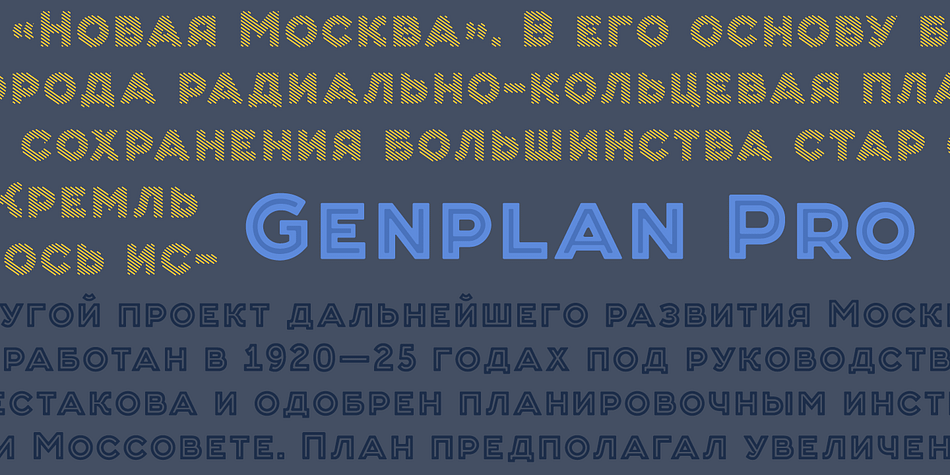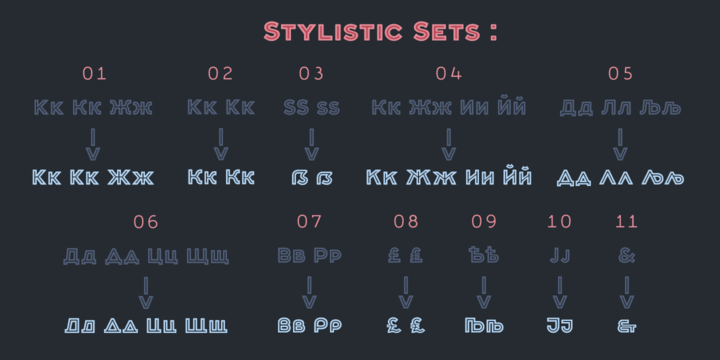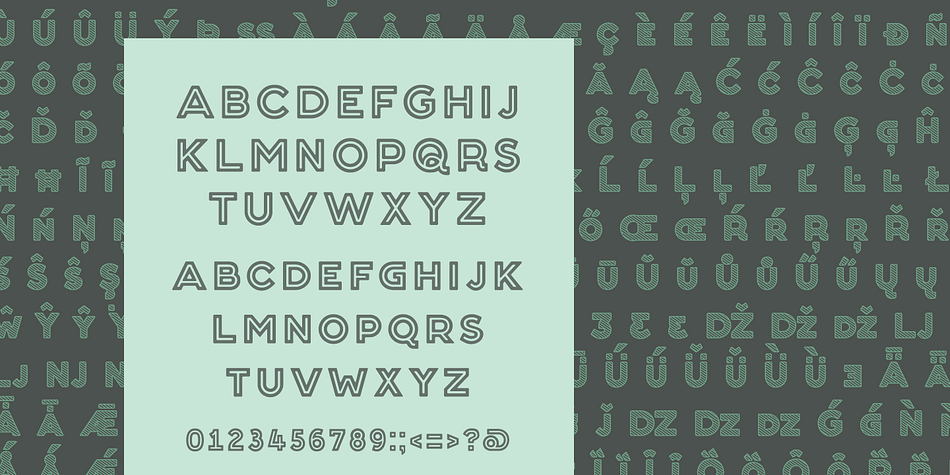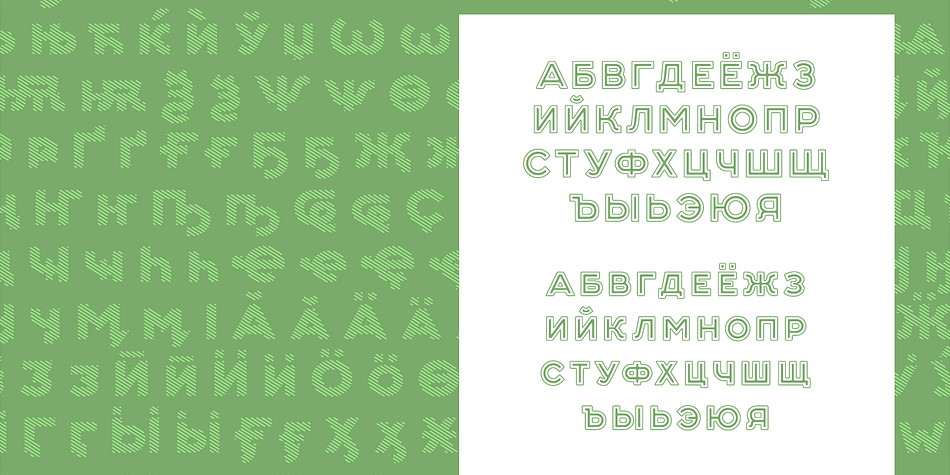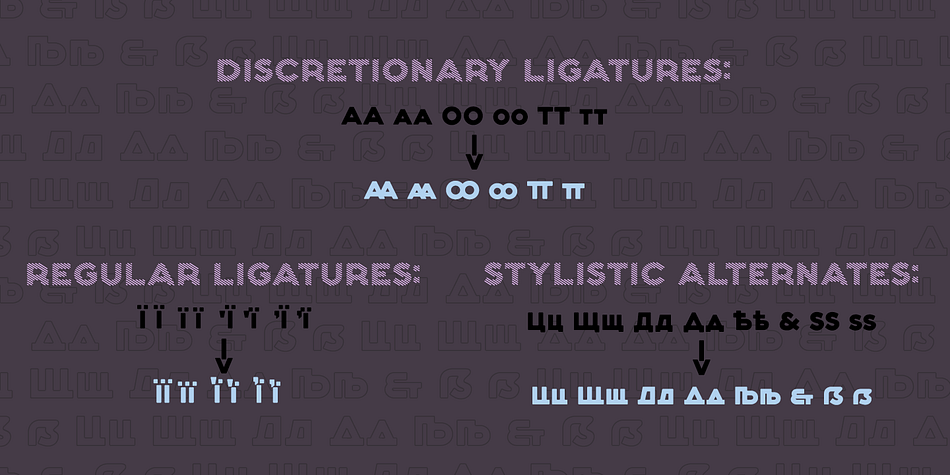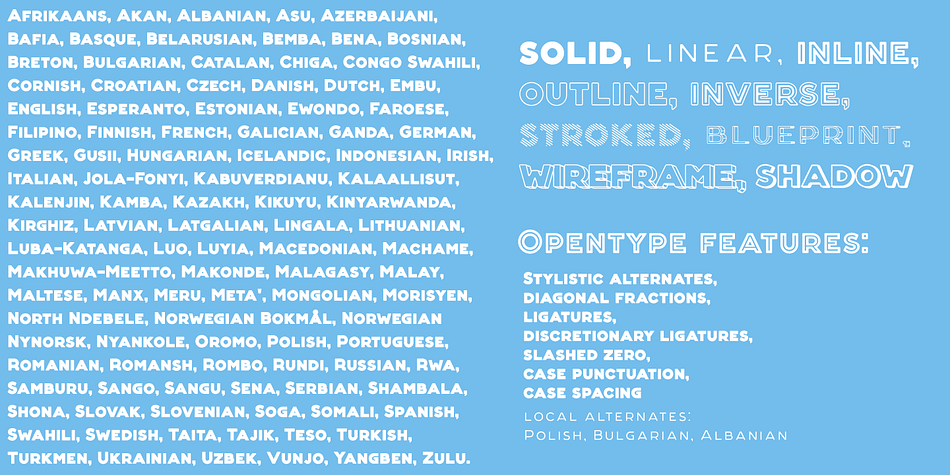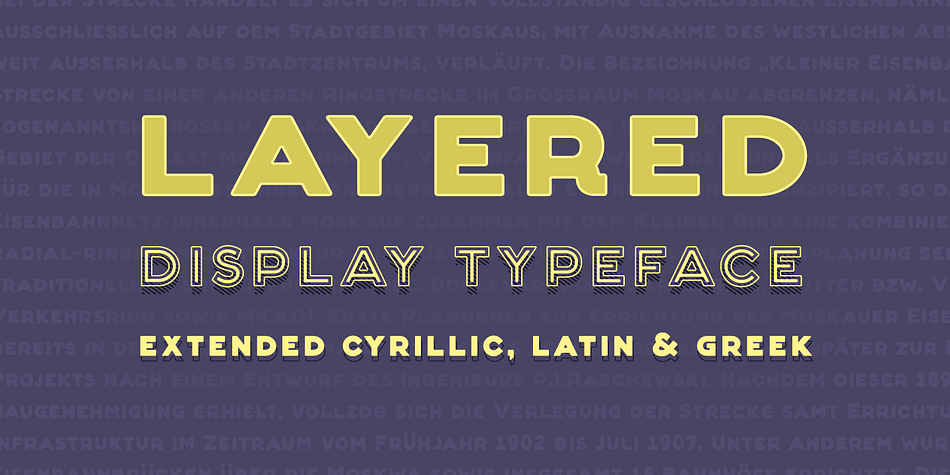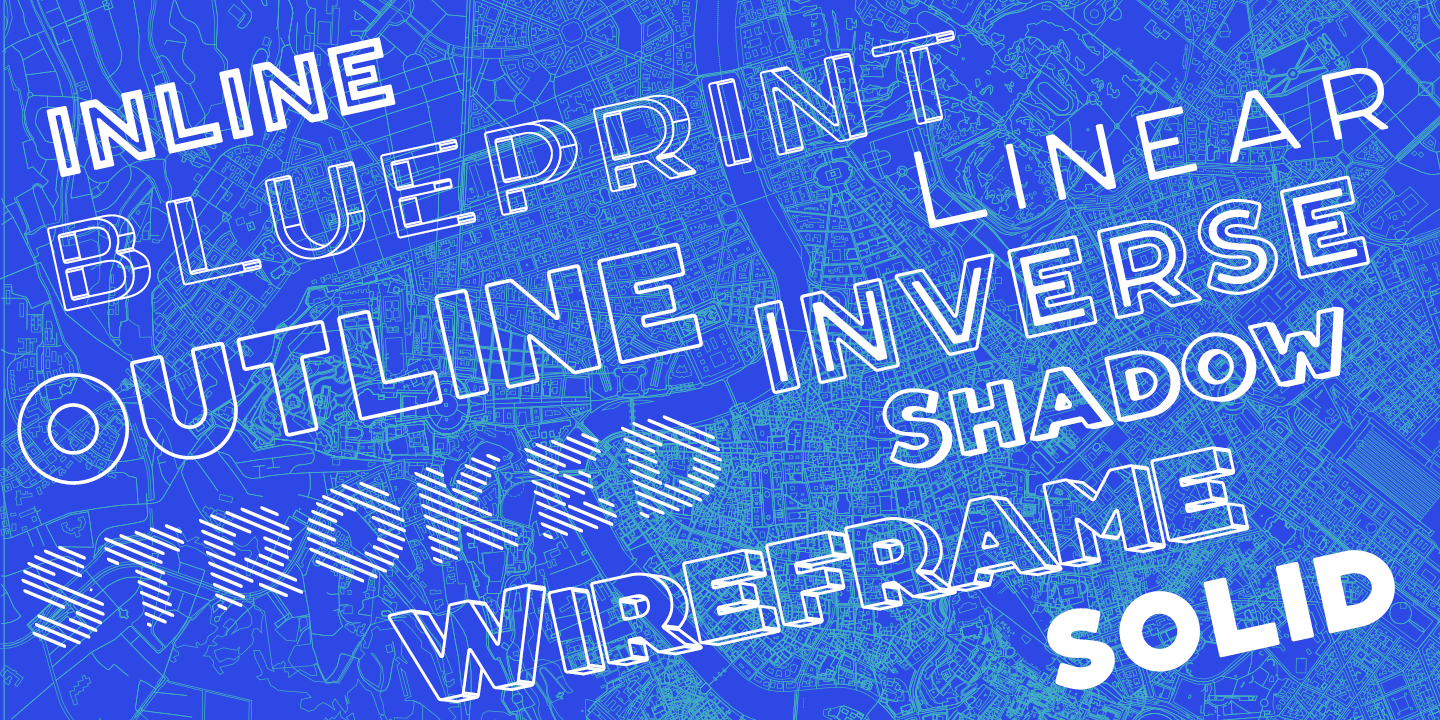
Designed by Dmitry Goloub, Genplan Pro is a display sans font family. This typeface has nine styles and was published by Thundertype.
Genplan Pro is a display family of nine typographic layers with a retro feeling. They could be stacked upon each other or could be used separately. Genplan Pro is based on the lettering in the title of the general plan of Moscow of 1935.
It supports all European languages including Greek, and many Cyrillic languages including the Asian ones. It has uppercase and small-caps letters. It also includes currency signs for Russian Rouble, Ukrainan Hryvnia and Kazakh Tenge. It has many alternate glyphs, Ukrainian regular ligatures, discretionary ligatures, language based alternates for Polish (the kreska), Albanian (the shape of J) and Bulgarian (triangular Ä and Ë).
As a typeface designed for display purposes, it’s great for use in logos and headlines.